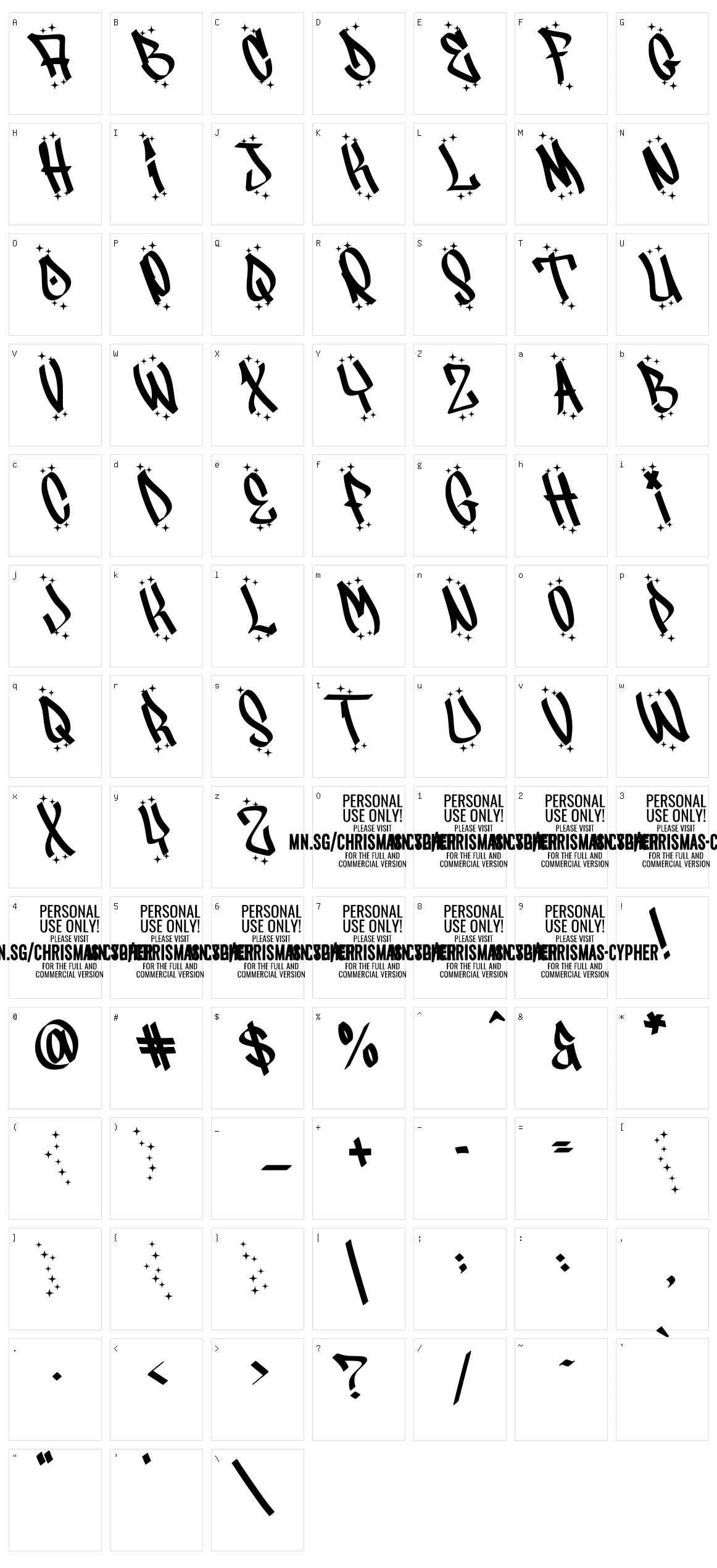
Christmas Cypher is a street Xmas font.
It merges the rebellious spirit of street art with the nostalgic cheer of the holiday season. This graffiti-inspired font embodies a dash of urban flair, perfect for designs that aim to stand out. Its bold strokes and sharp attitude, infused with a whimsical twist of Christmas elements, make it ideal for youthful and energetic designs. The font dances between traditional cheer and contemporary cool, bringing a fresh perspective to the visual language of Christmas.
Use the included Icon font to make Christmas symbols.
Use parenthesis symbols () [] {} to make stars around any word.
Example: {Hiphop}[Style]
The font is built with advanced OpenType functionality and guaranteed top-notch quality, containing stylistic and contextual alternates, ligatures and more automatic and manual features; all to give you full control and customizability.
It has extensive lingual support, covering all Latin-based languages, from North Europa to South Africa, from America to South-East Asia. It contains all characters and symbols you'll ever need, including all punctuation and numbers.
Designed by Mans Greback, a typographer known for his attention to detail and passion for blending tradition with modern design trends, Christmas Cypher is more than a font â it's a declaration of celebration and creativity.